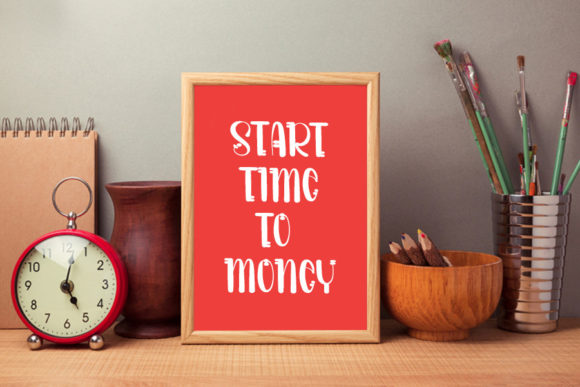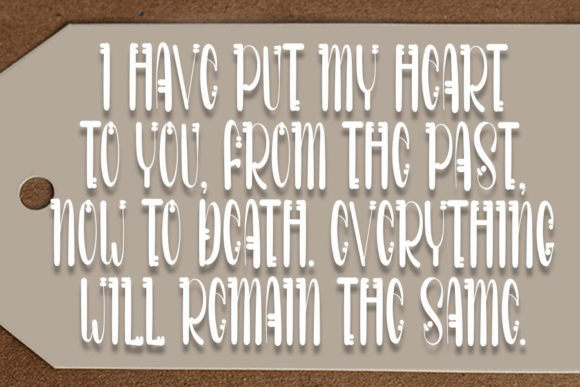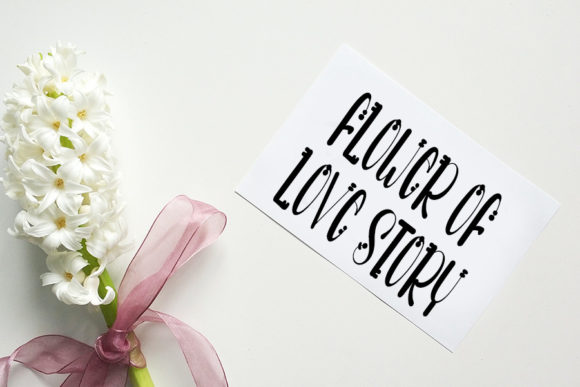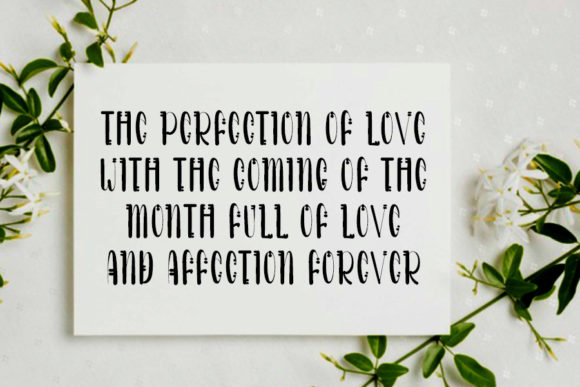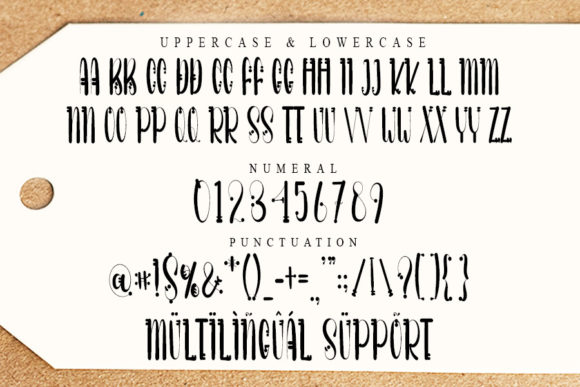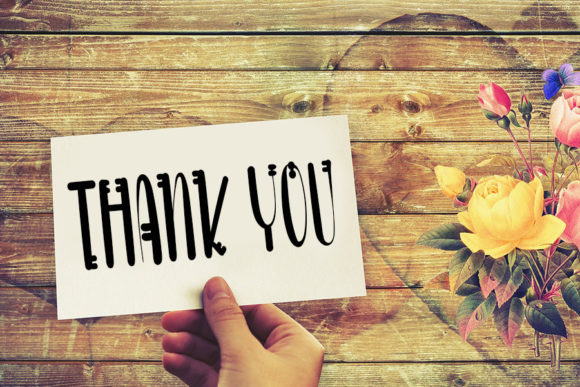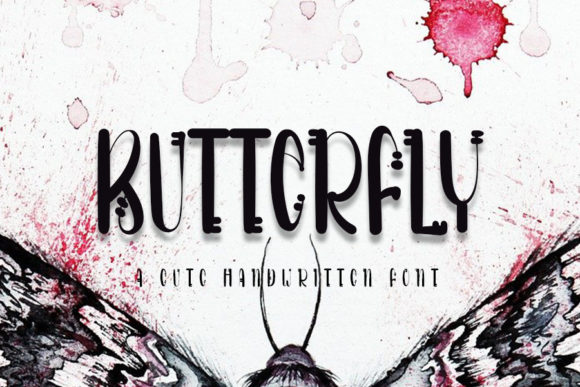
Introducing Butterfly Font: Elevate Your Designs with Elegance and Sophistication
In the world of typography, a font can make or break the visual appeal of a design project. For designers and crafters seeking a unique and stylish touch, the Butterfly Font is an exceptional choice. This thin and fashionable handwritten font boasts a distinctive theme that adds a touch of elegance and sophistication to any project.
A Balanced and Versatile Font
The Butterfly Font strikes the perfect balance between being too thin and too thick, making it an ideal choice for a wide range of design applications. Its balanced and varied strokes bring a sense of harmony and visual flow to your projects, ensuring that your message is conveyed with clarity and style.
Designed to Enhance Beauty
The Butterfly Font was specifically designed to enhance the beauty of your projects. Whether you’re working on a branding campaign, a website, or a craft project, this font is sure to elevate your design and leave a lasting impression. Its unique theme and stylish strokes add a touch of personality to your work, setting it apart from the ordinary.
The Butterfly Font is a versatile font that can be used in a variety of design applications, making it a perfect choice for both designers and crafters. Its elegant and sophisticated style makes it ideal for:
• Branding and logo design
• Website design and development
• Craft projects, such as card making and scrapbooking
• Advertising and marketing materials
Key Features of Butterfly Font
The Butterfly Font offers a range of features that make it an exceptional choice for designers and crafters. Some of its key features include:
• Thin and fashionable handwritten style
• Unique and distinctive theme
• Balanced and varied strokes
• Elegant and sophisticated style
• Versatile and adaptable to a range of design applications
Why Choose Butterfly Font?
With so many fonts available, why choose the Butterfly Font? Here are just a few reasons why this font stands out from the rest:
• Unique and distinctive style that adds a touch of personality to your designs
• Balanced and varied strokes that bring harmony and visual flow to your projects
• Elegant and sophisticated style that’s perfect for a range of design applications
• Versatile and adaptable to different design styles and themes
In conclusion, the Butterfly Font is an exceptional choice for designers and crafters seeking a unique and stylish font for their projects. Its thin and fashionable handwritten style, balanced and varied strokes, and elegant and sophisticated theme make it perfect for a range of design applications. Whether you’re working on a branding campaign, a website, or a craft project, this font is sure to elevate your design and leave a lasting impression.